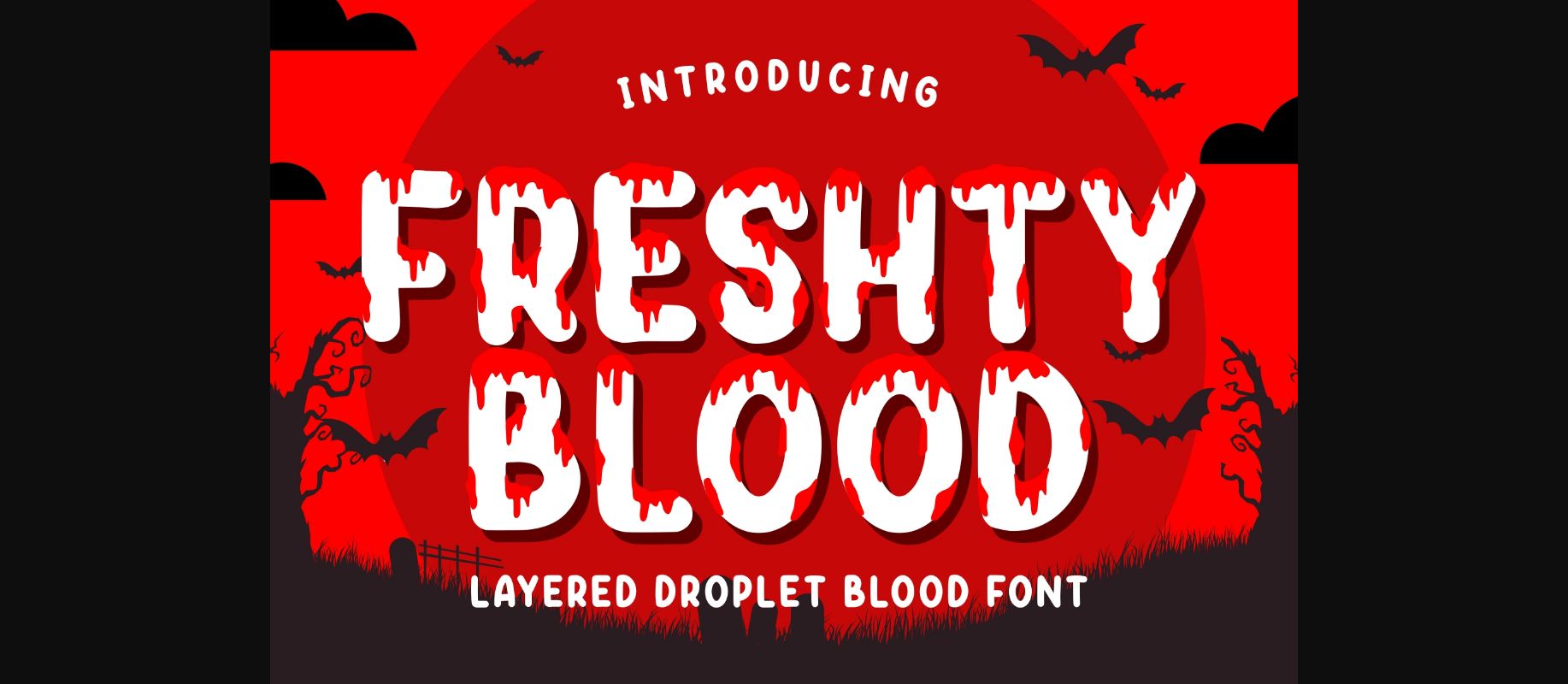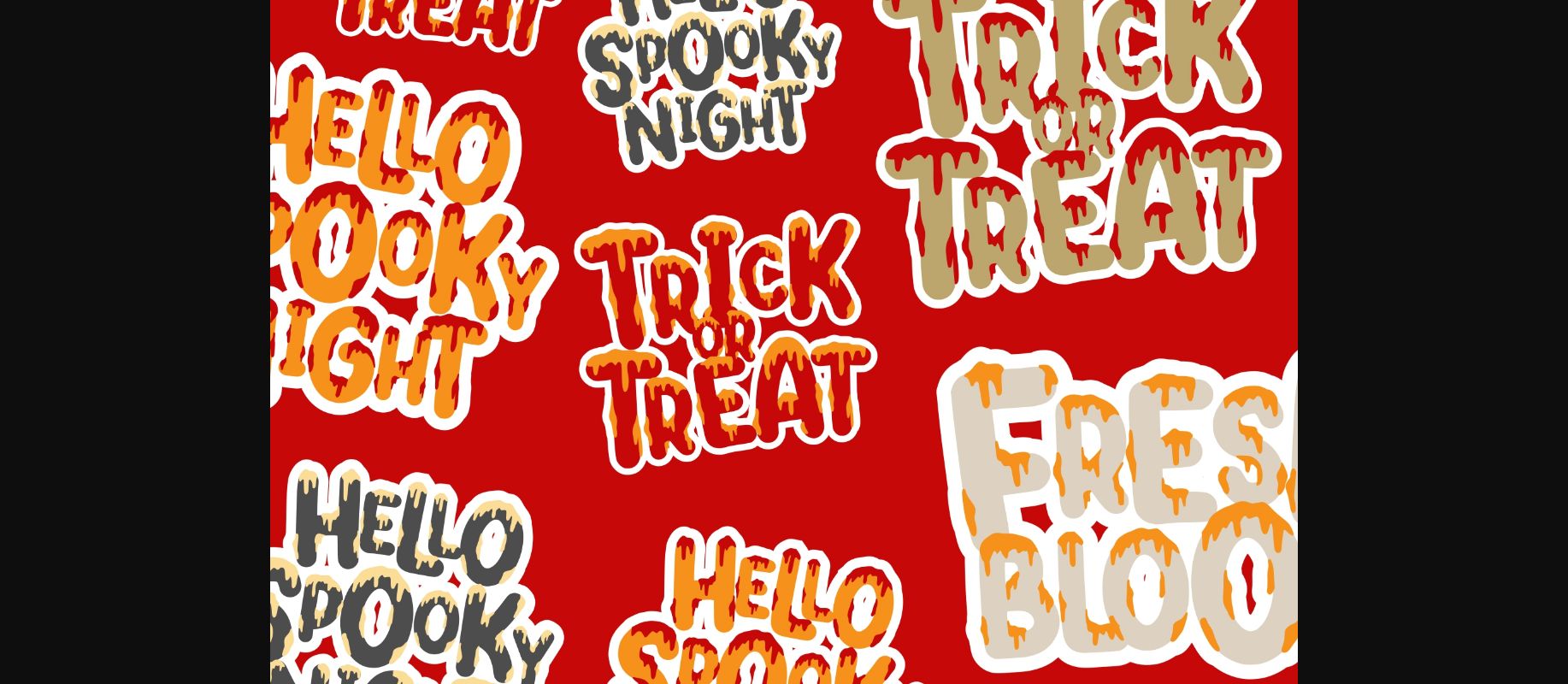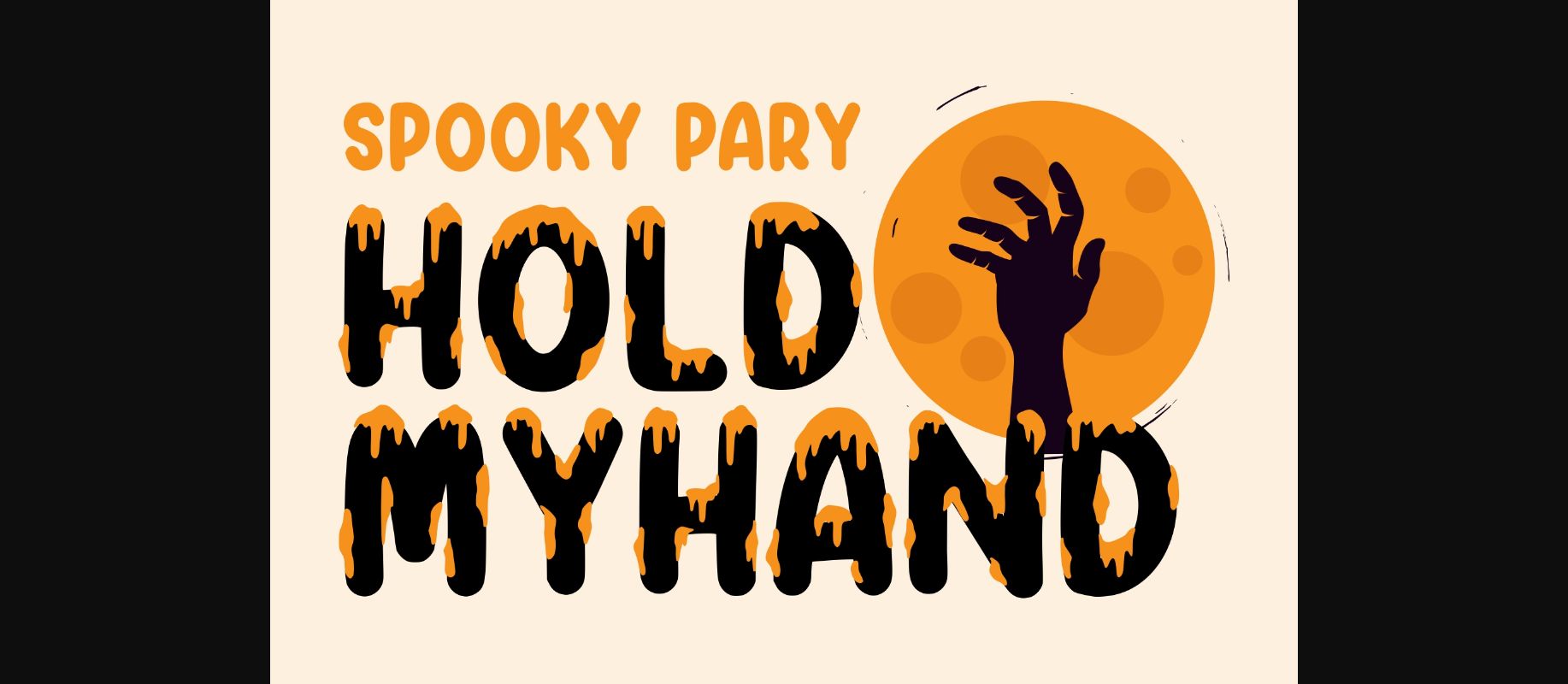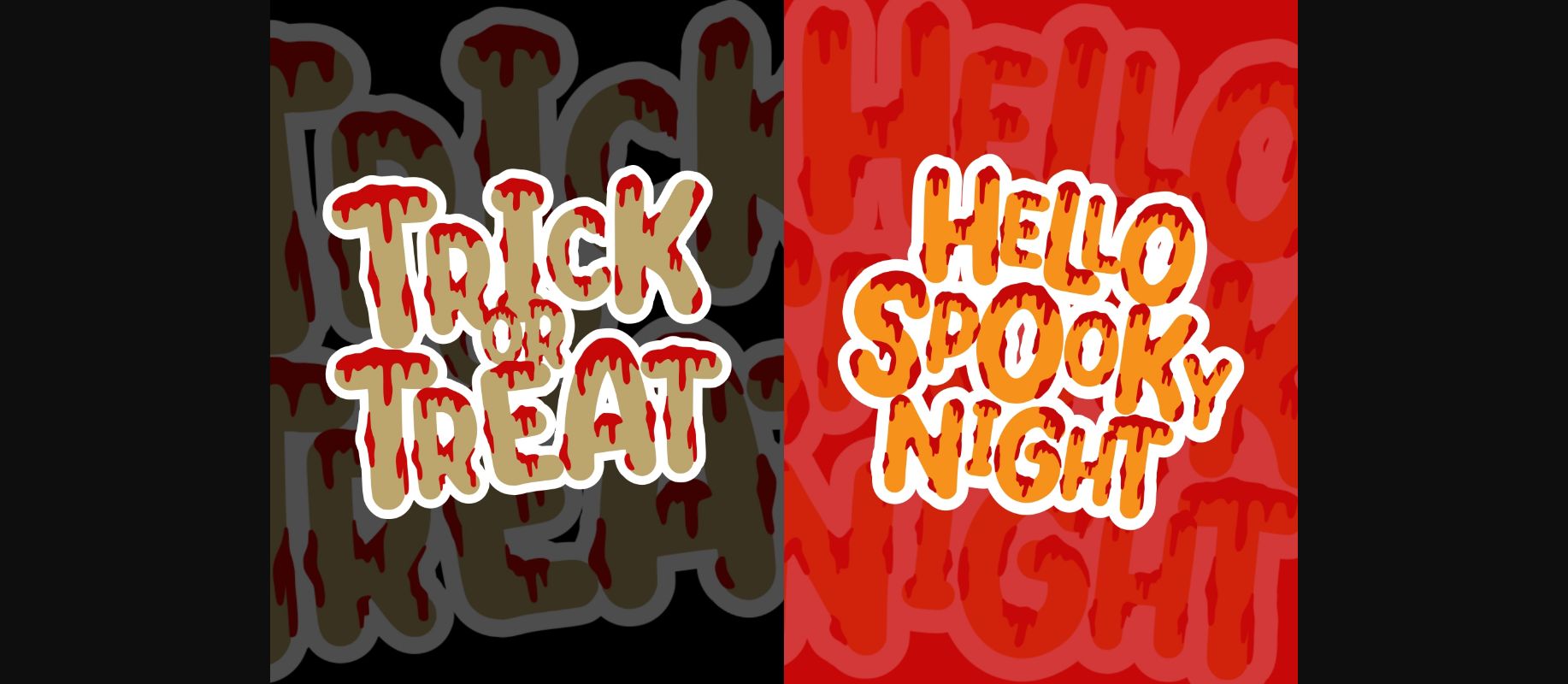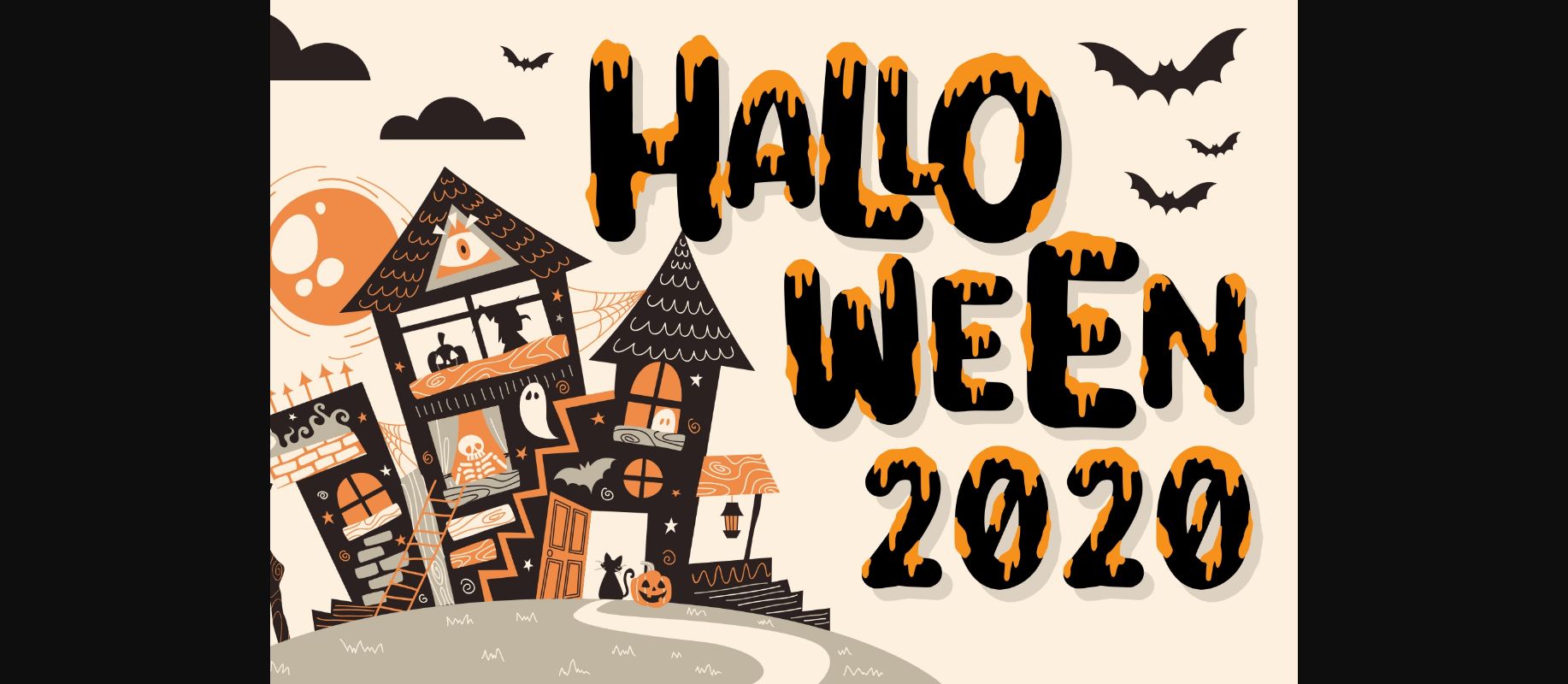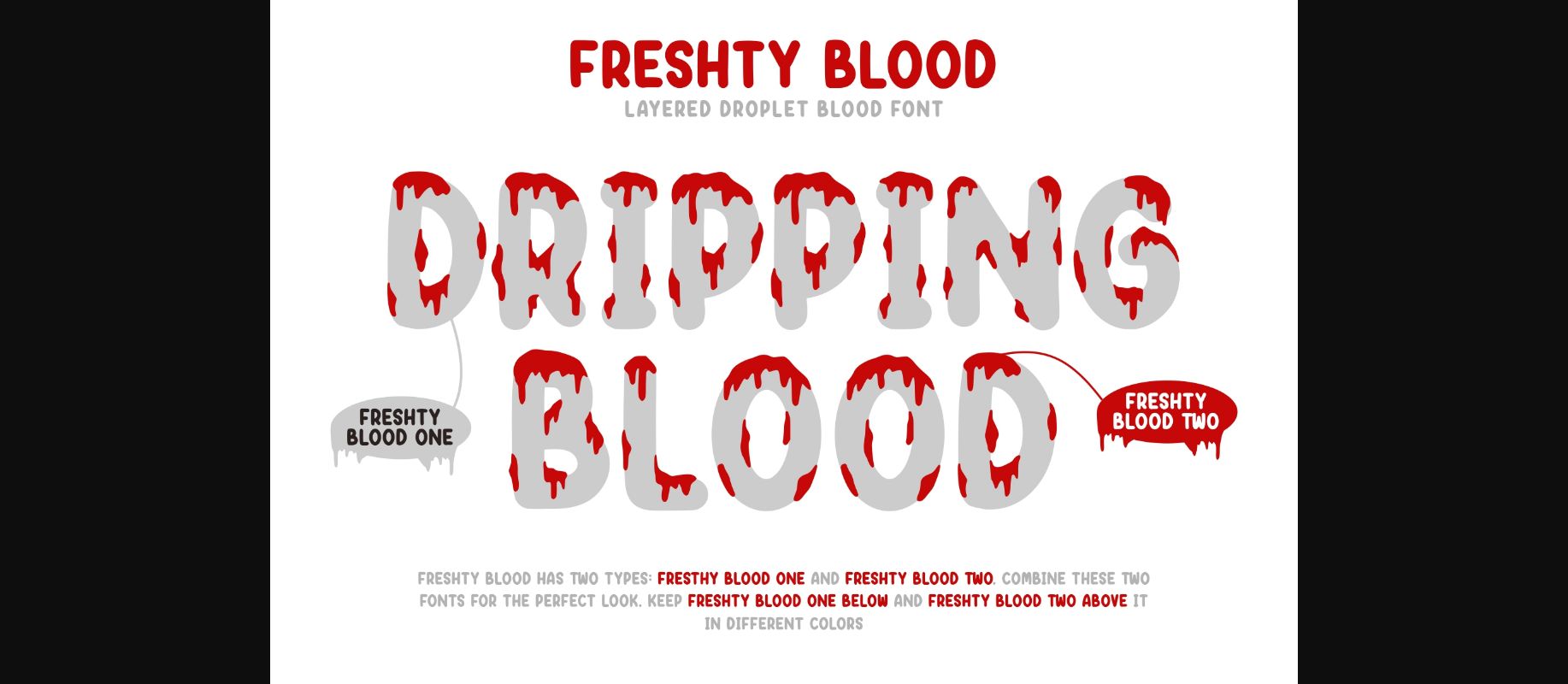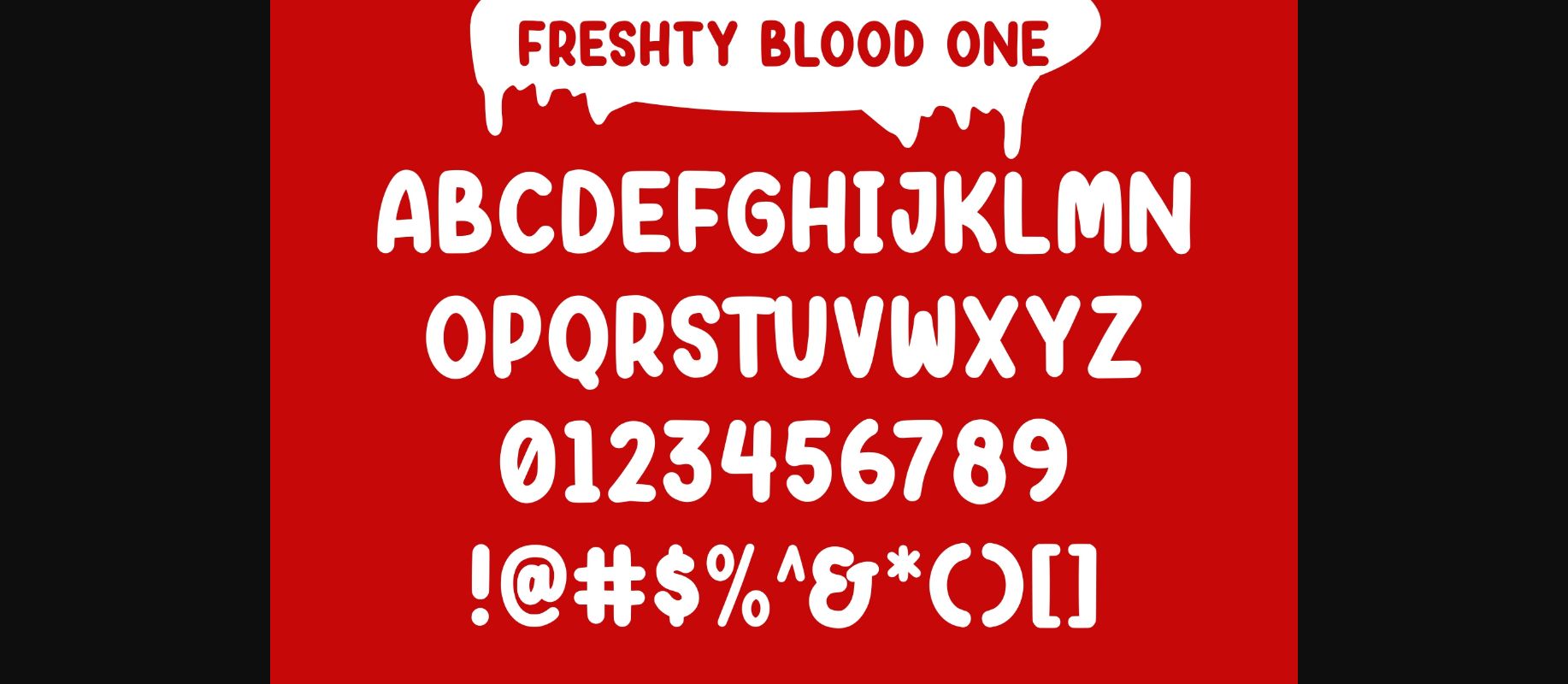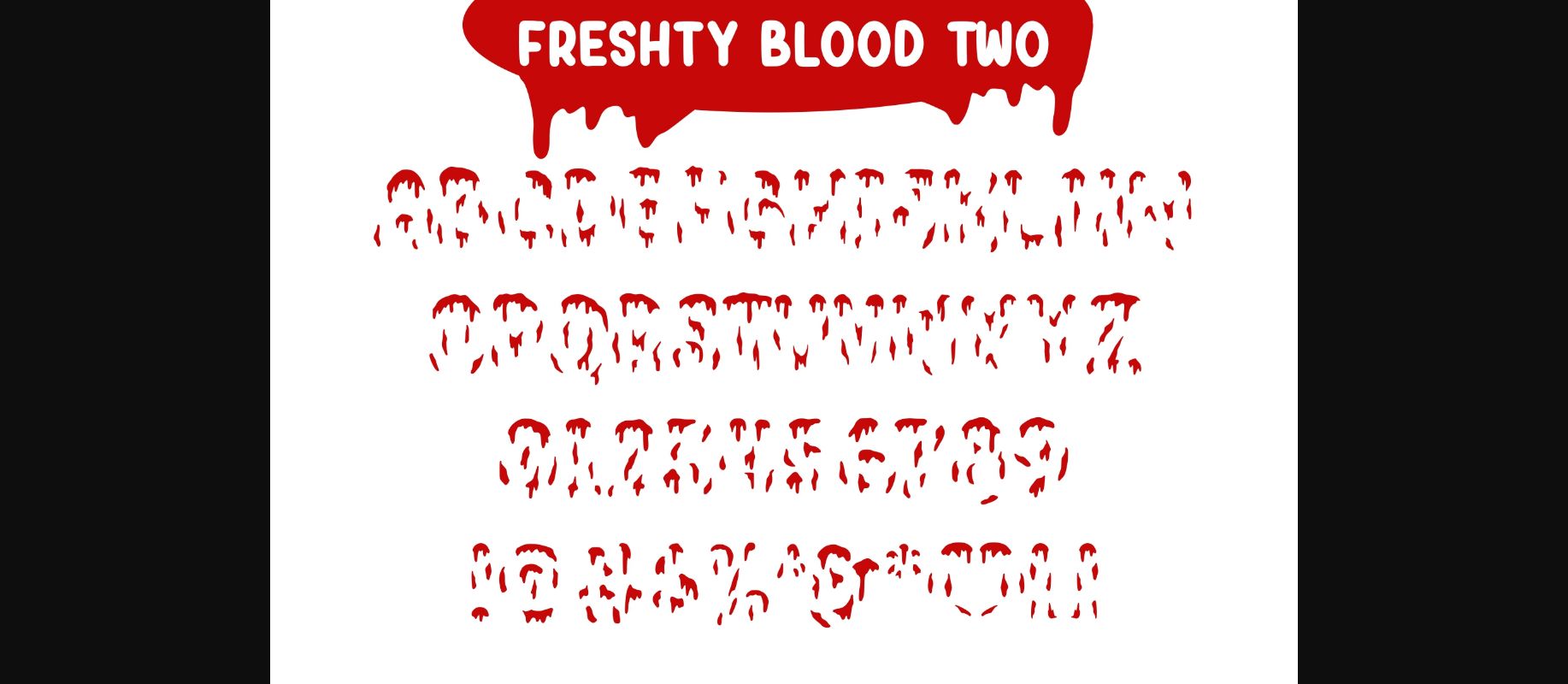
Freshty Blood is a bold and spooky decorative font with a Halloween theme. Add this font to your creative ideas and notice how it will make them stand out!